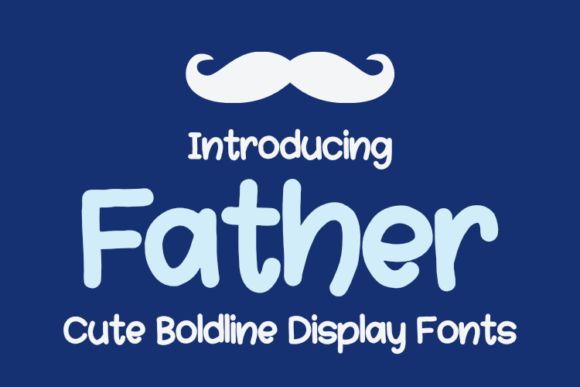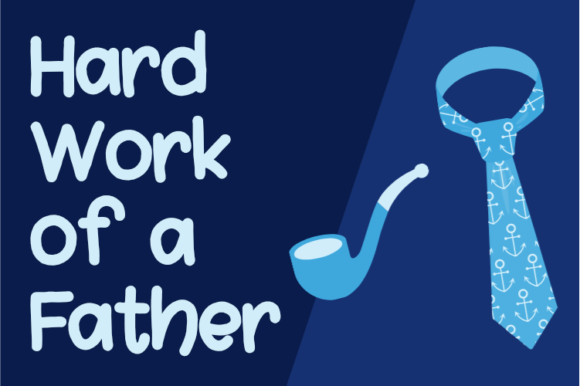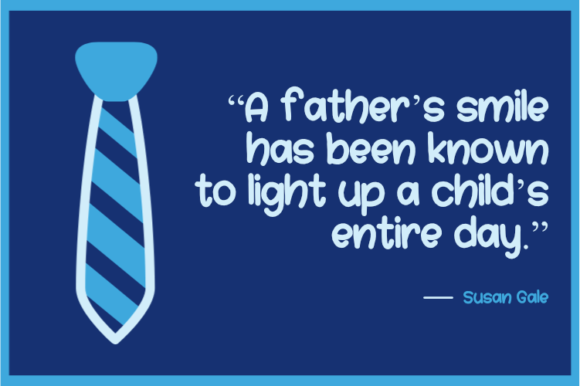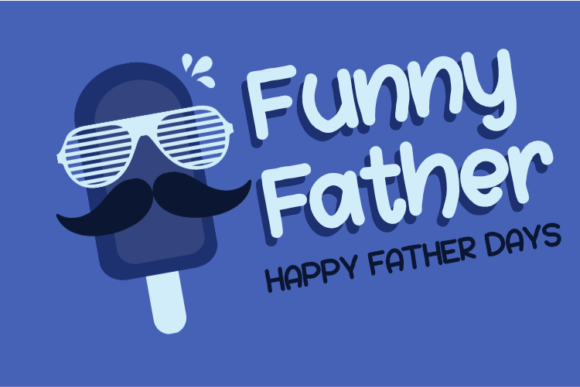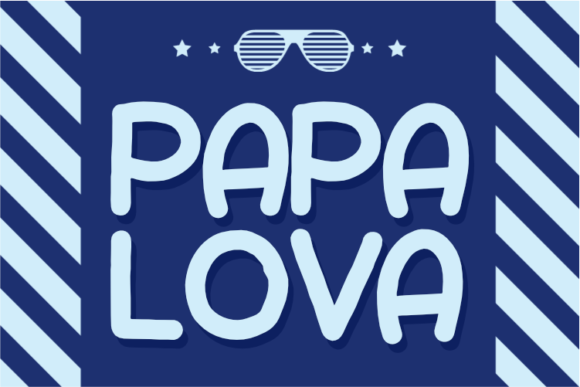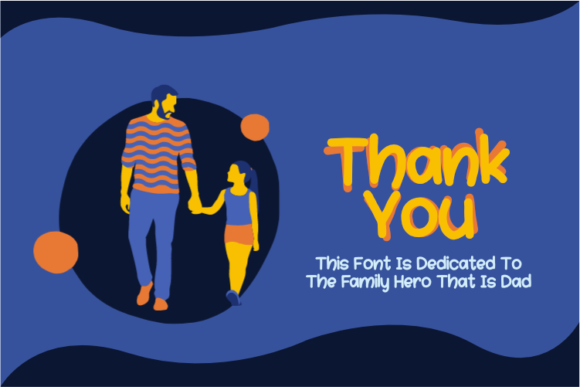
The Perfect Tribute to Family Heroes: Introducing Father Font
Do you remember the moment when you first sketched out an idea for a project, and it just felt right? For designers, those moments are what drive us to create something truly special. And for me, that moment came when I stumbled upon the perfect font to celebrate the unsung heroes of our lives – our fathers.
Enter Father Font, a charming sans serif font with a bold outline style that screams ‘family hero.’ This delightful font was born out of the joy of Father’s Day, and it’s the perfect way to honor the special men in our lives. Whether you’re designing a food product label, a book title, or a T-shirt, Father Font is the perfect choice to add a personal touch.
As a designer, you’ll love Father Font for its versatility and warmth. It’s the perfect addition to any project that needs a bit of personality and heart. So why not give Father Font a try and see how it can elevate your next design project?
Father Font Key Features
- Font Family: Father Font is a unique, hand-drawn sans-serif font with a warm and friendly feel.
- Unique Characteristics: Features a distinctive, hand-drawn feel with subtle imperfections, adding a touch of personality to any design.
Father Font Review
Overall, I’d say Father Font is an interesting addition to the world of typography. ✨ The font’s unique blend of traditional and modern elements has garnered attention from designers and enthusiasts alike.
Here are some aspects that work well in Father Font:
- ✨ The font’s bold and expressive strokes make it perfect for headings and titles.
- ✨ The use of subtle texture and imperfections adds a touch of humanity to the font.
- ✨ The font’s versatility allows it to be used in a wide range of applications, from print to digital.
- ⚠️ The font may not be the best choice for small text sizes, as the bold strokes can become difficult to read.
- ⚠️ The font’s unique style may not appeal to everyone, and some users may find it too unconventional.
In conclusion, Father Font is a solid addition to any designer’s toolkit. While it may not be perfect for every project, its unique style and versatility make it a great choice for designers looking to add some personality to their work.
The Father Font is a versatile font that can be used in a variety of designs, including:
– Wedding invitations
– Family tree designs
– Personalized gifts
Tips for Getting the Most Out of Father Font
To get the most out of Father Font, consider the following tips:
– Use it in combination with other fonts for a unique and creative look.
– Experiment with different font sizes and colors to create visual interest.
– Use it in designs that require a classic and timeless feel.
Alternatives to “Father Font” for Designers
Montserrat is a sans-serif font designed by Julieta Ulanovsky. It is a great alternative to “Father Font” for designers who want a clean and modern look. Montserrat is perfect for digital products, logos, and branding materials. It is also highly legible in small sizes, making it a great choice for body text.
Comparison to “Father Font”: Montserrat has a more geometric and minimalist feel compared to “Father Font”, which has a more traditional and classic look. Montserrat is also more versatile and can be used in a wide range of design projects.
Open Sans is a modern sans-serif font designed by Steve Matteson. It is a great alternative to “Father Font” for designers who want a clean and professional look. Open Sans is perfect for digital products, websites, and marketing materials. It is also highly legible in small sizes, making it a great choice for body text.